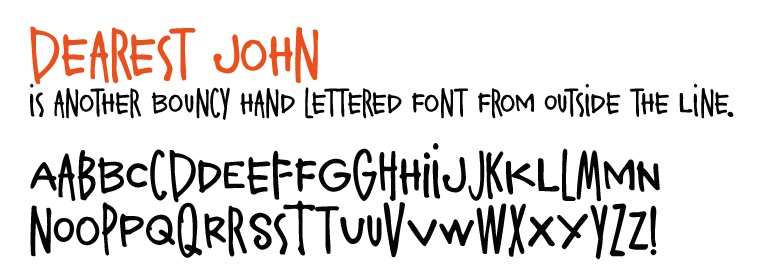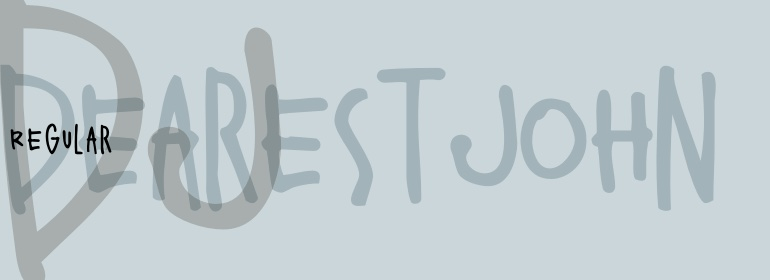
Dearest John
Font Family by Outside-the-Line
Dearest John is the first font in the Love Letters series from Outside the Line. It is a bouncy hand lettered font. If you type caps and lower case you get one look. If you type all caps you get another look. It's like getting 2 fonts for the price of one! I prefer to type caps and lower case and then go back in and tweak the headline a little to get the look I want.